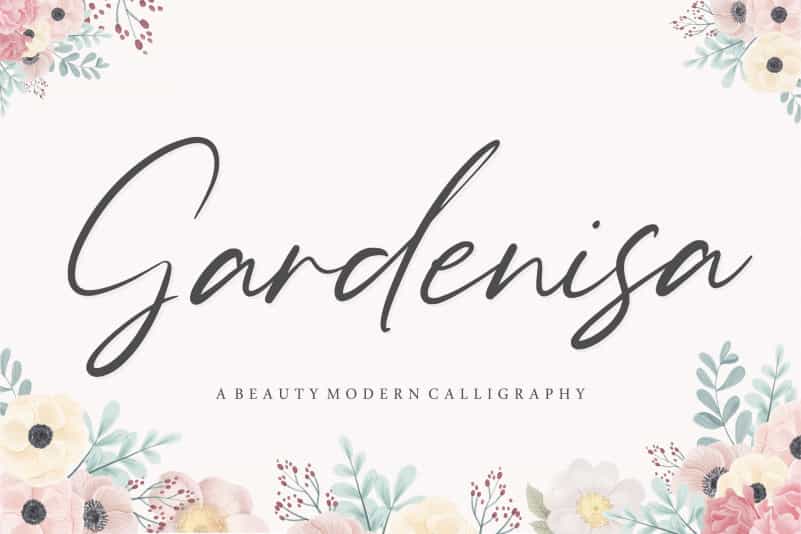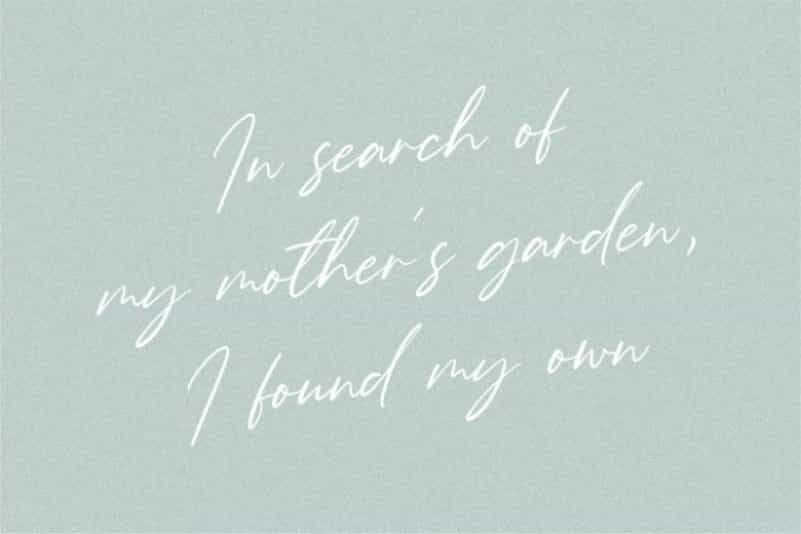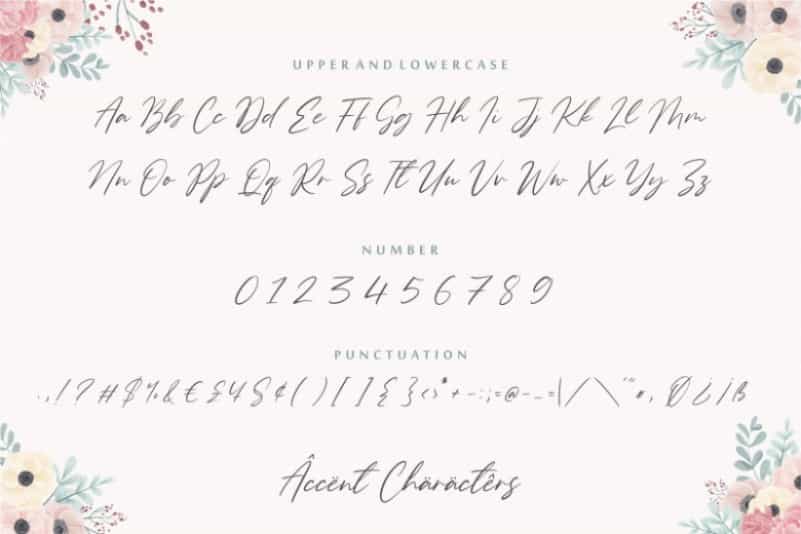
Gardenisa is beautiful contemporary calligraphy font. it’s perfect for packaging of products, branding projects, magazines wedding, social media or to write words on the background. The font is available in TTF, Gardenisa also multilingual support.